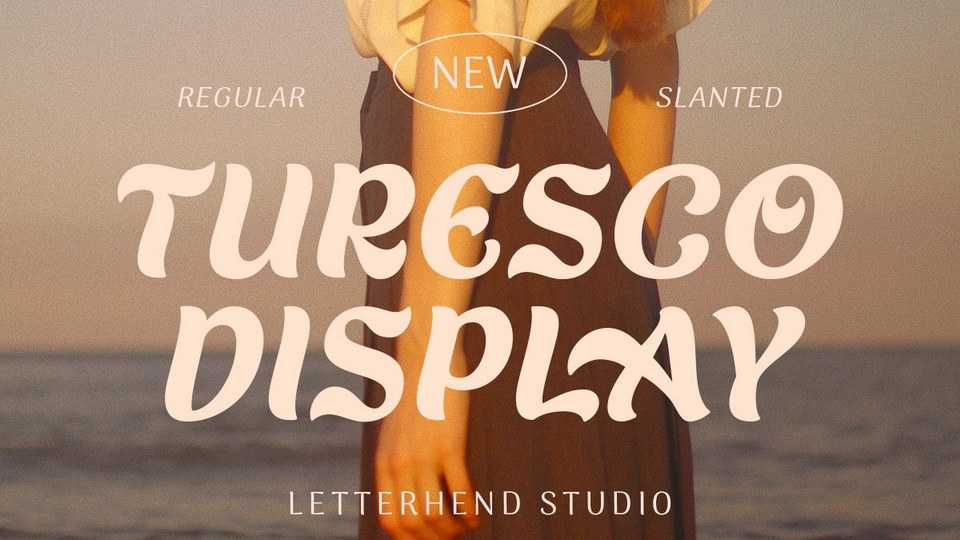
Download Turesco Display font, a display typeface with smooth and eye-catching letterform. Turesco Display looks great to be used for modern and minimalistic yet still playful and fun theme.